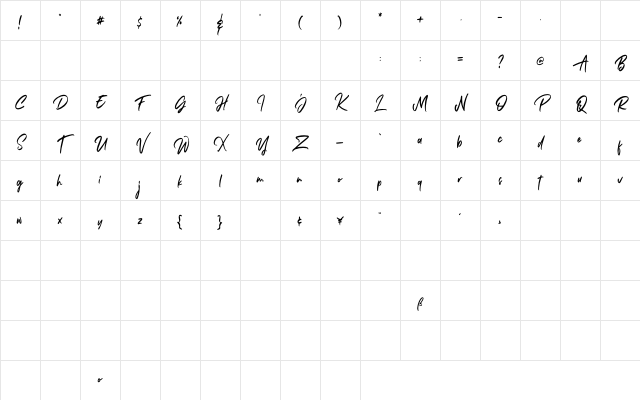
Complete Janetta Rossie Solid Regular glyph index. Displaying only characters natively supported by Janetta Rossie Solid Regular font.
Janetta Rossie Solid is a composed and adaptable typeface that performs quietly and consistently across a wide range of design contexts.